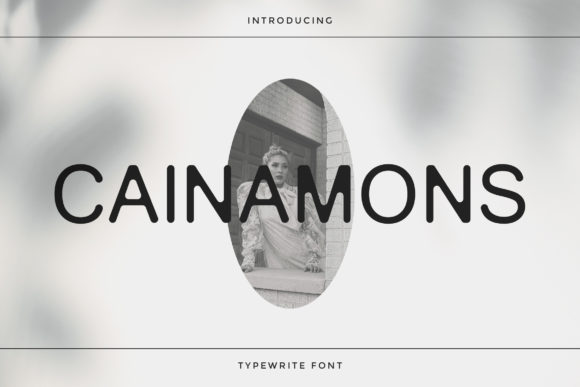
Step into a world of timeless elegance with Cainamons, the vintage sans serif font that exudes sophistication and retro charm. Its meticulously crafted characters, reminiscent of a bygone era, will elevate your designs to new heights of refinement. Whether you're creating logos, branding, album covers, or social media posts, Cainamons will add a touch of class and distinction.
With its clean lines, minimal aesthetic, and classic appeal, Cainamons is the perfect choice for fashion and apparel projects. Its timeless style will lend a touch of timeless elegance to your designs, making them stand out from the crowd. From sleek logos to eye-catching t-shirt designs, Cainamons will help you create designs that resonate with your audience.
Unleash your creativity with Cainamons and explore the endless possibilities it offers. Its versatility extends to magazines, social media posts, advertisements, and many more. Whether you're looking to create a captivating social media campaign, an engaging magazine spread, or a dynamic advertisement, Cainamons will provide the perfect foundation for your designs.
Cainamons is not just a font; it's an expression of your unique style and personality. Its vintage charm and modern sensibility will add a touch of nostalgia and sophistication to your designs. Embrace the power of Cainamons and let your creativity soar.